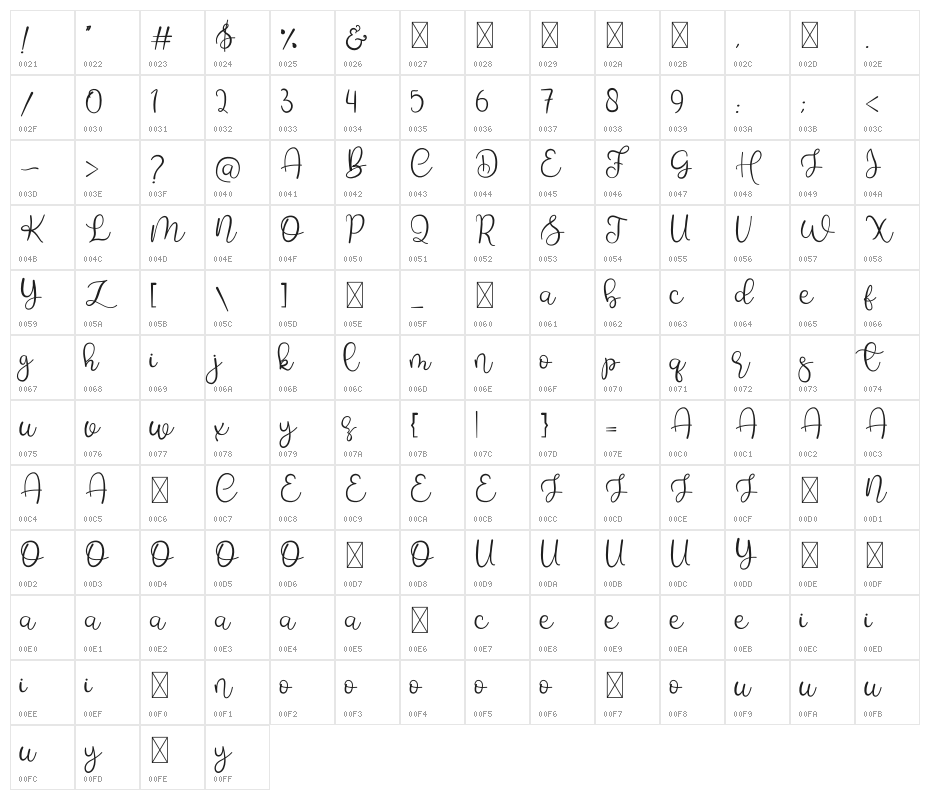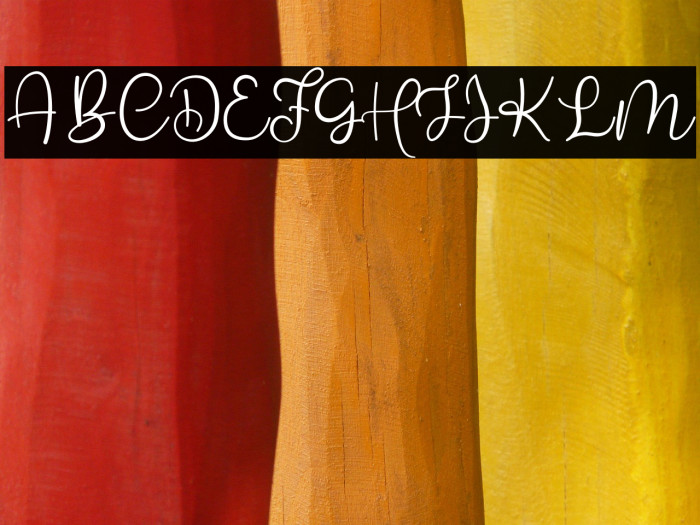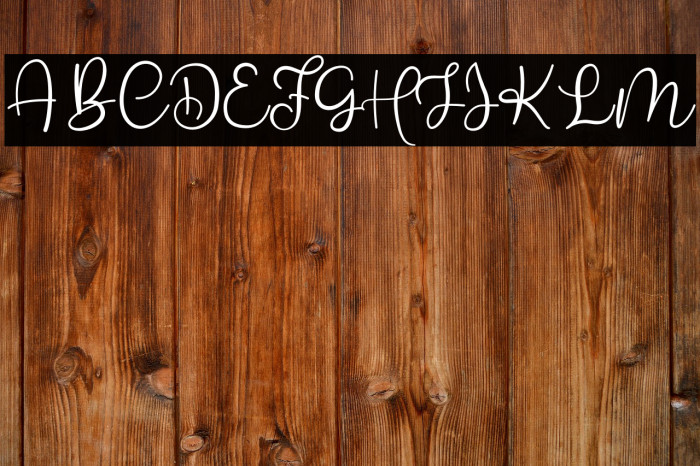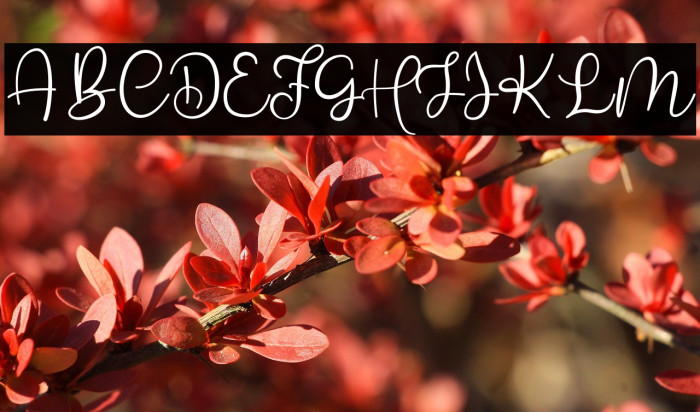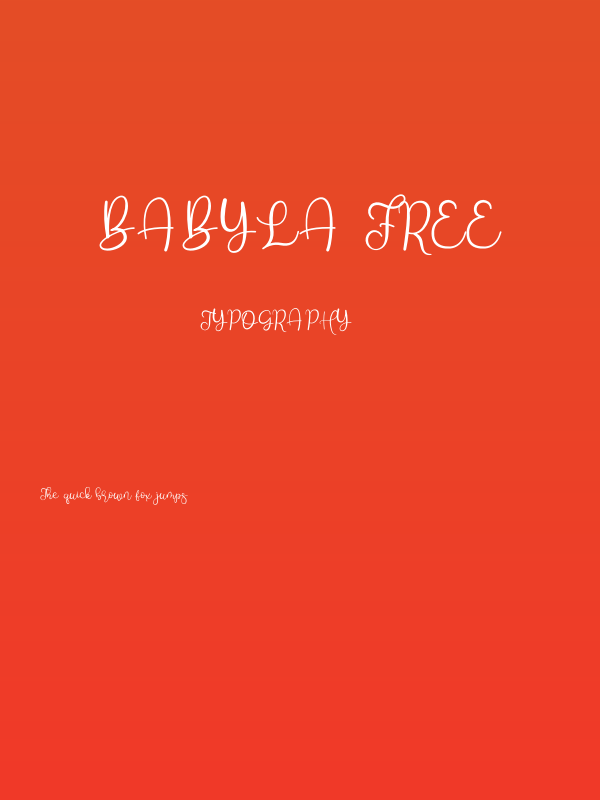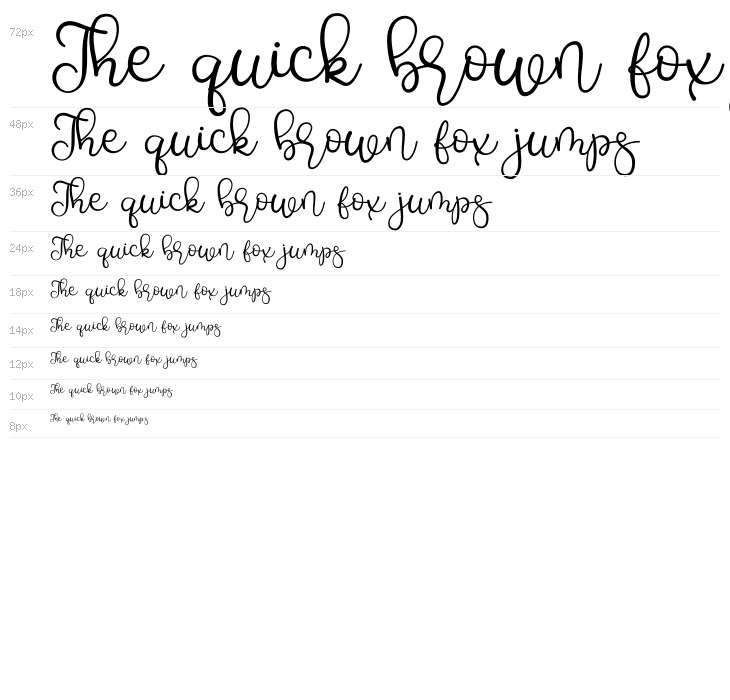
Babyla Free Font
Babyla Free Description
This font features a playful and whimsical script style, characterized by its flowing, interconnected letters. The uppercase letters are elegant and slightly exaggerated, with loops and swirls that add a touch of sophistication. The lowercase letters maintain a consistent flow, enhancing readability while preserving the font's artistic flair. Numbers are clear and distinct, matching the overall style. Special characters are creatively designed, fitting seamlessly with the rest of the font. This font is ideal for projects that require a personal, handwritten touch, such as invitations, greeting cards, or creative branding.
| Proposed Projects | Ideal for invitations, greeting cards, creative branding, and personal projects. |